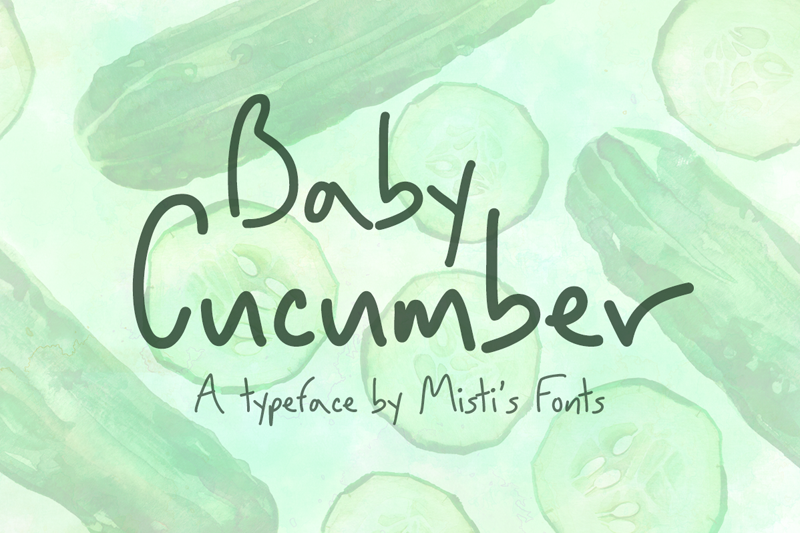
Font name: | Baby Cucumber |
Baby Cucumber is a quirky and casual handwritten font. It will look great on blog post graphics, shop logos and on product labels. Its whimsical style makes it ideal for creating cute greeting cards and personalized items, as well as cartoon or comic-themed projects. Terms Of Use and Commercial Licensing: https://mistifonts.com/baby-cucumber/ |